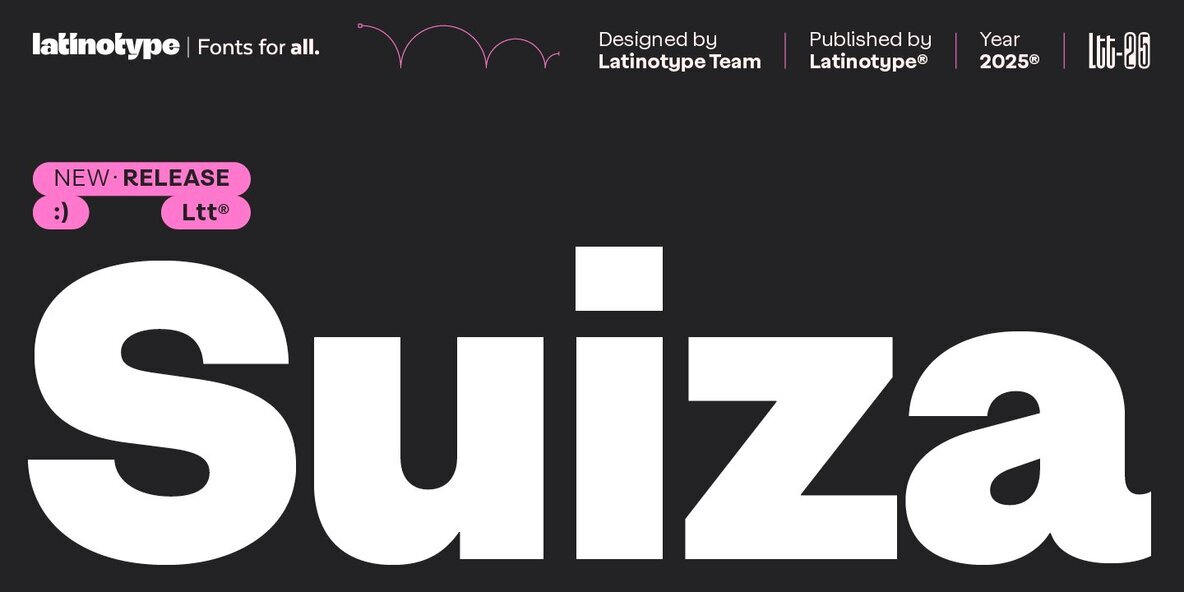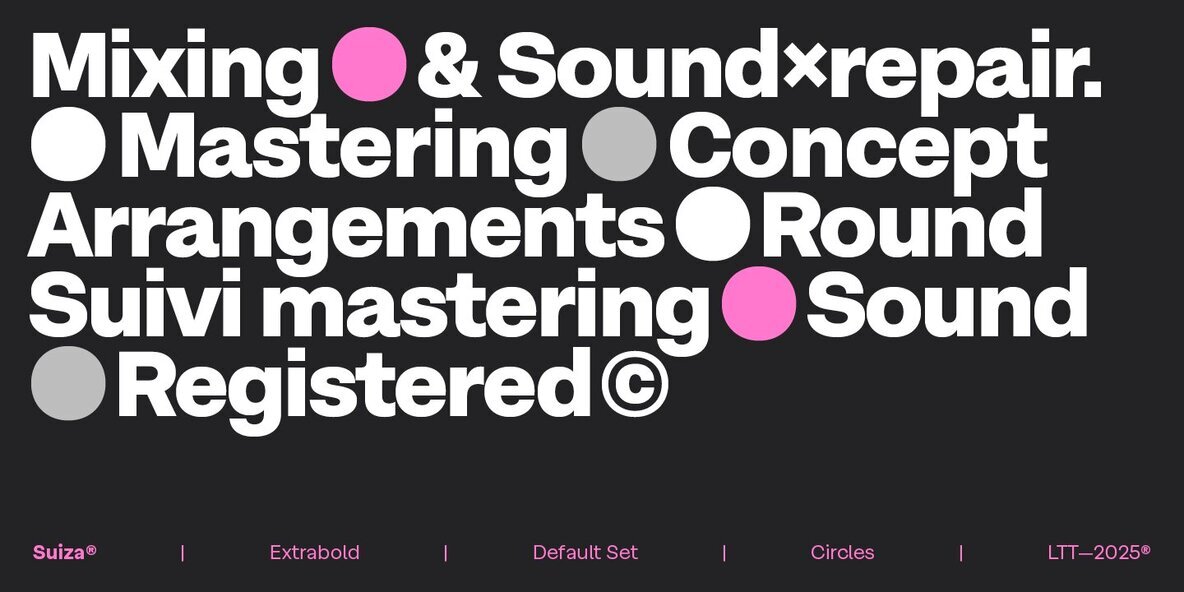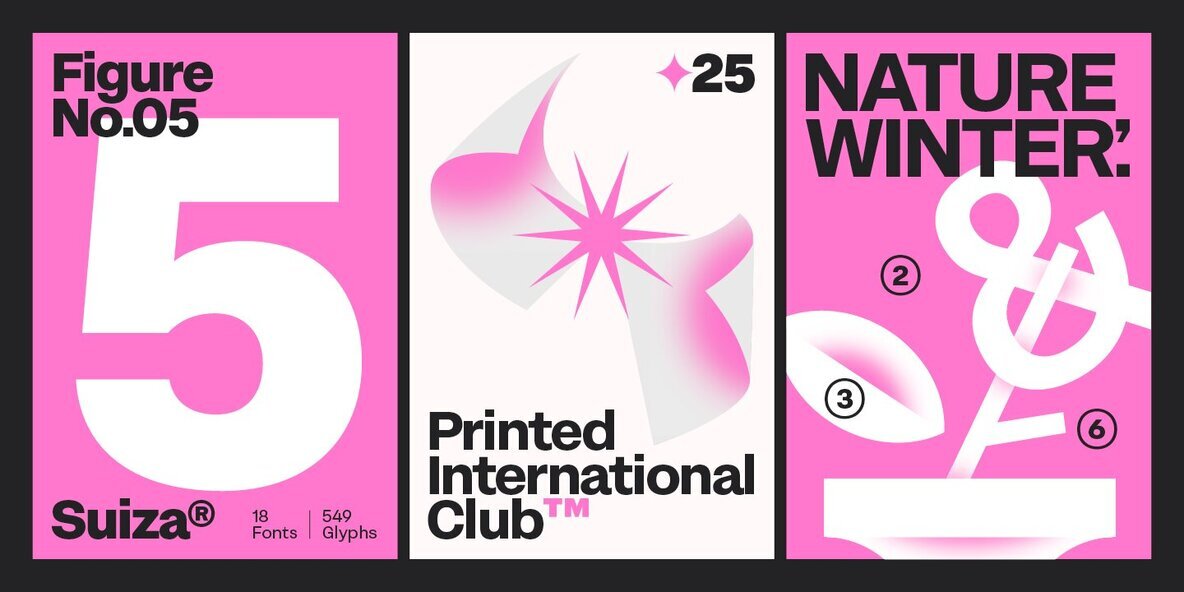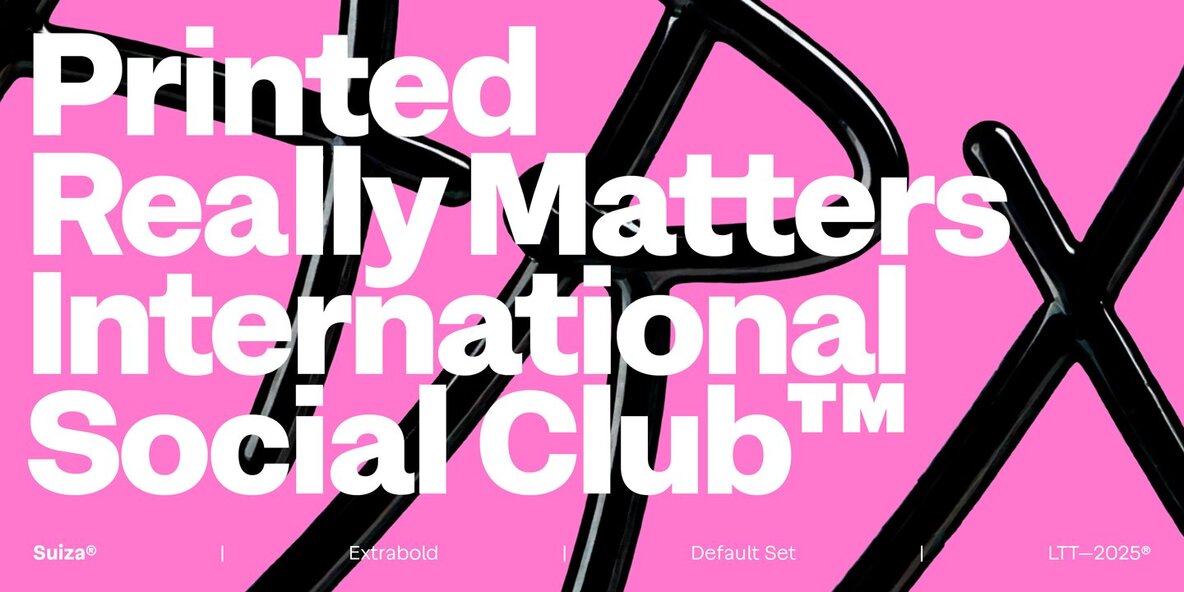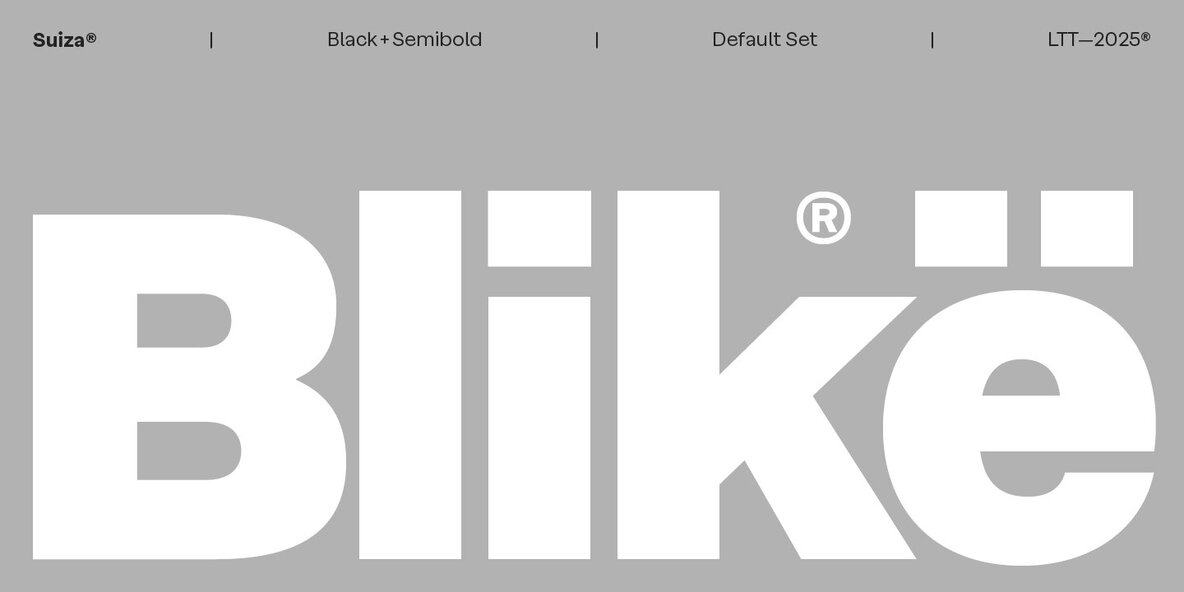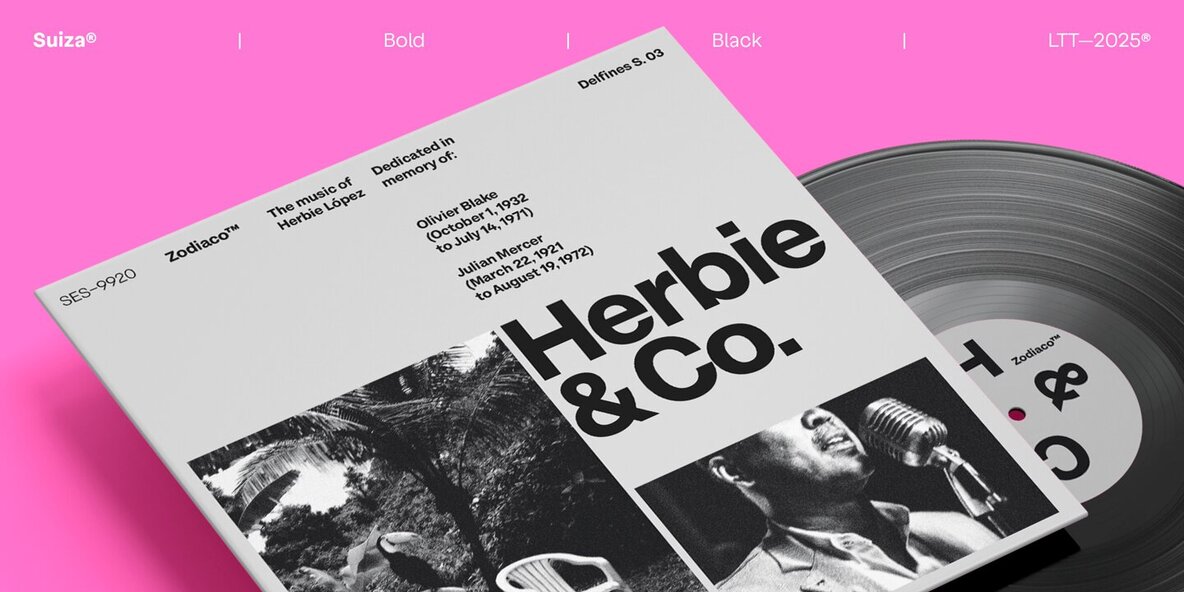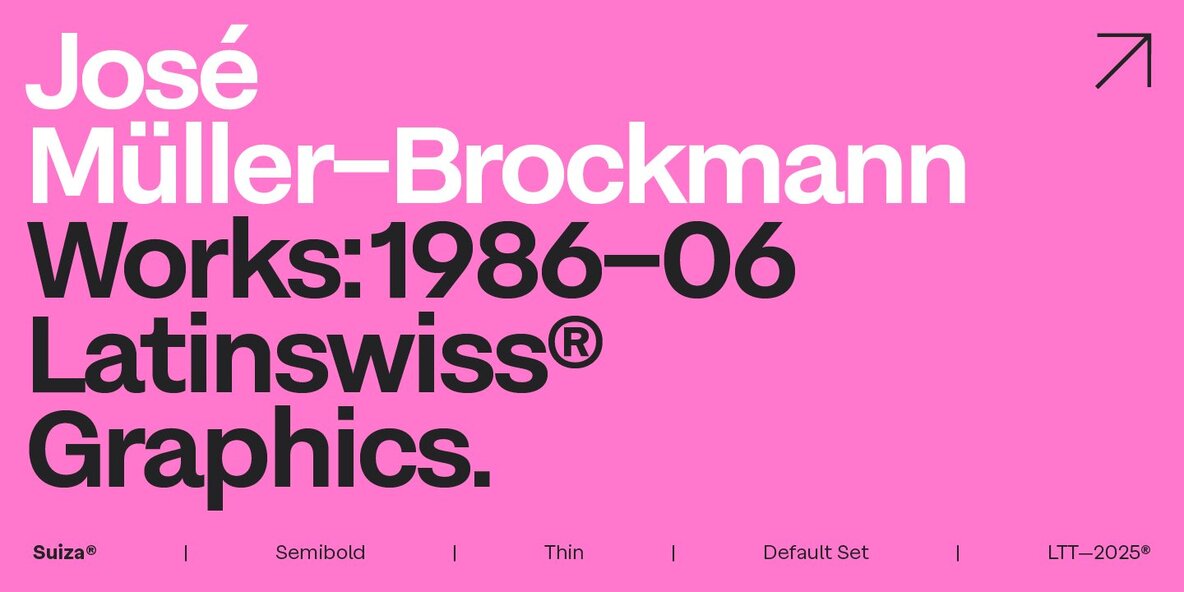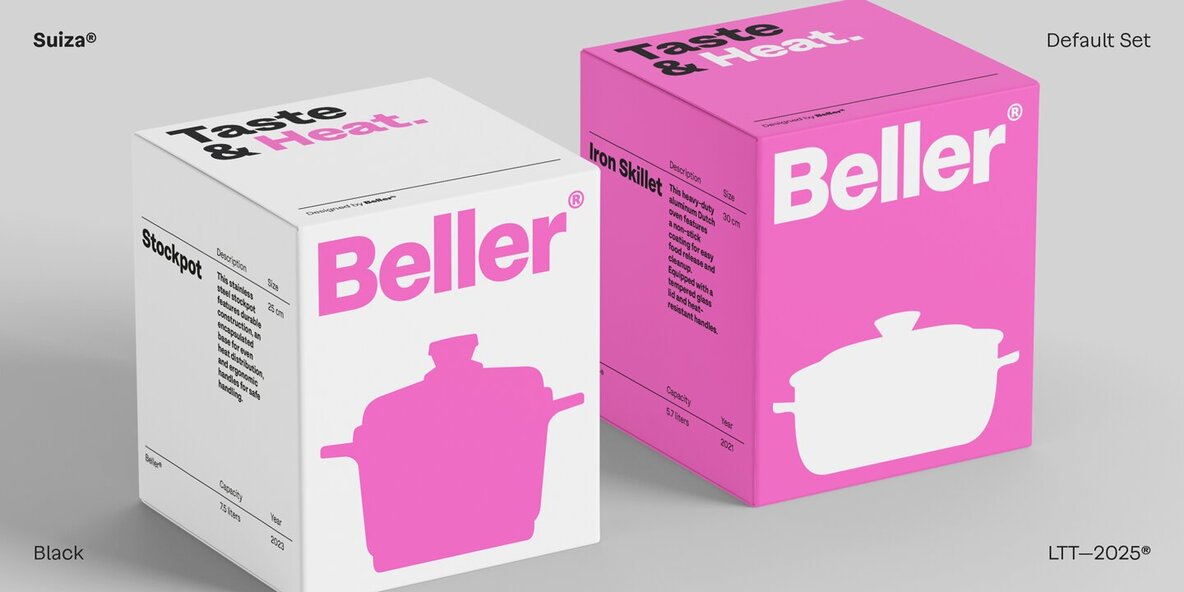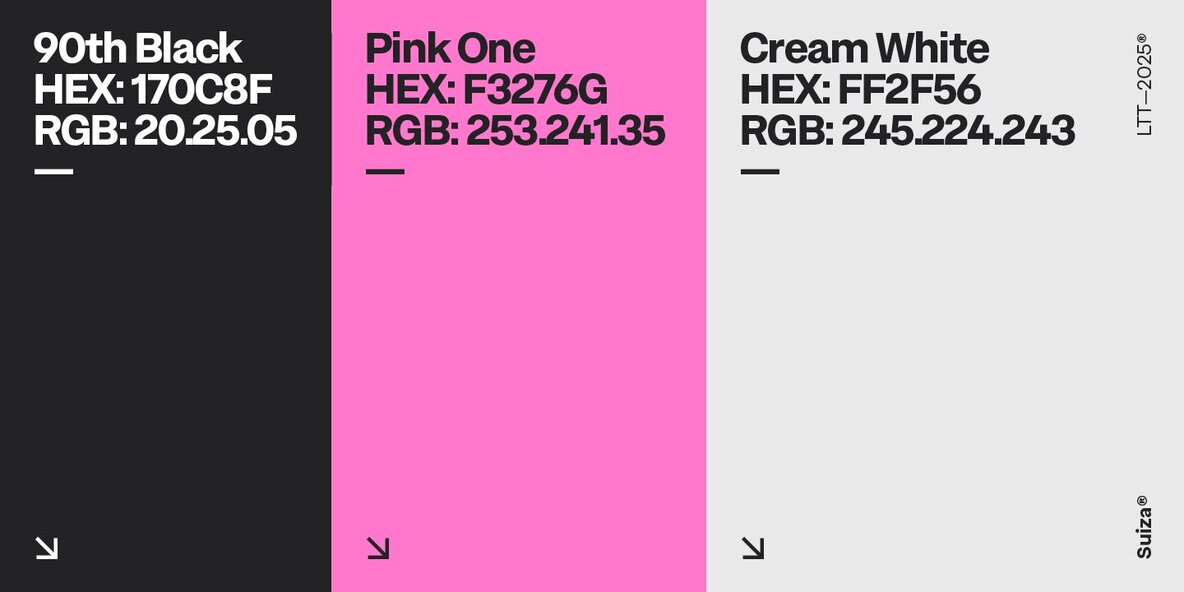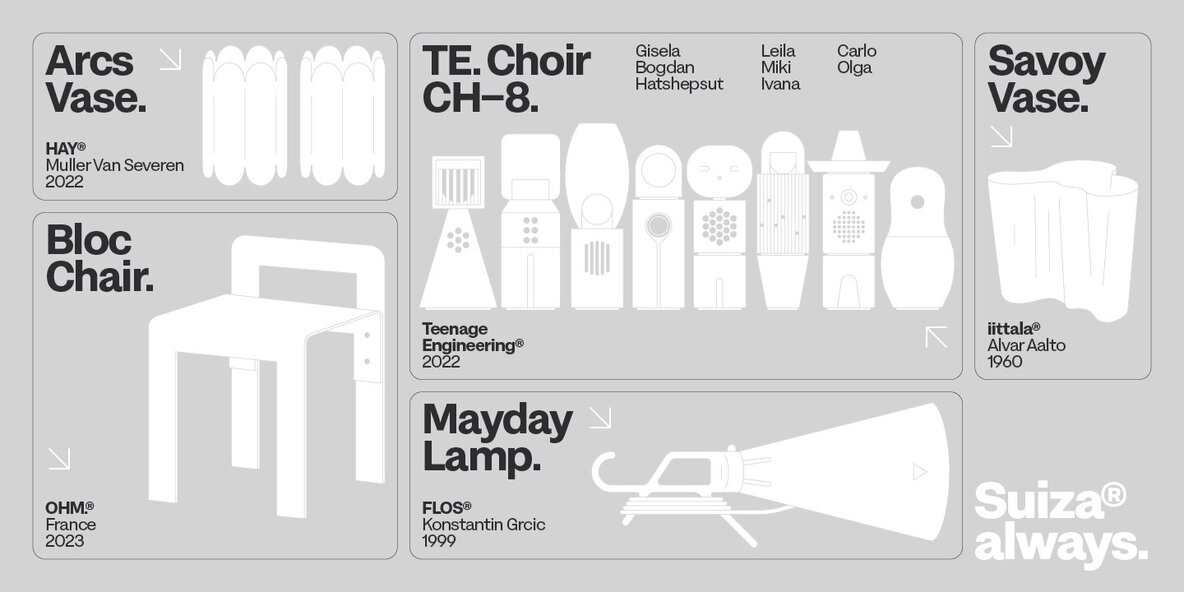
Suiza Font
Suiza is a contemporary sans-serif typeface that marries versatility with a rational, modern character. Rooted in the Swiss typographic tradition of the 1960s, it offers a unique combination of classic precision and fresh sensibility. Created by the Latinotype team, Suiza merges geometric clarity with the warmth and expressiveness found in Latin design. It offers 18 weights and 593 glyphs, characterized by a balanced structure, clean terminals, and sharp, precise cuts, ensuring clarity and a confident presence in any design. Inspired by iconic references like Helvetica and New York subway signage, Suiza reinterprets this legacy of order and legibility. It retains the rigor of its predecessors while introducing flexibility and expressiveness, making it suitable for a wide range of applications.Suiza: A Blend of Tradition and Modern Character